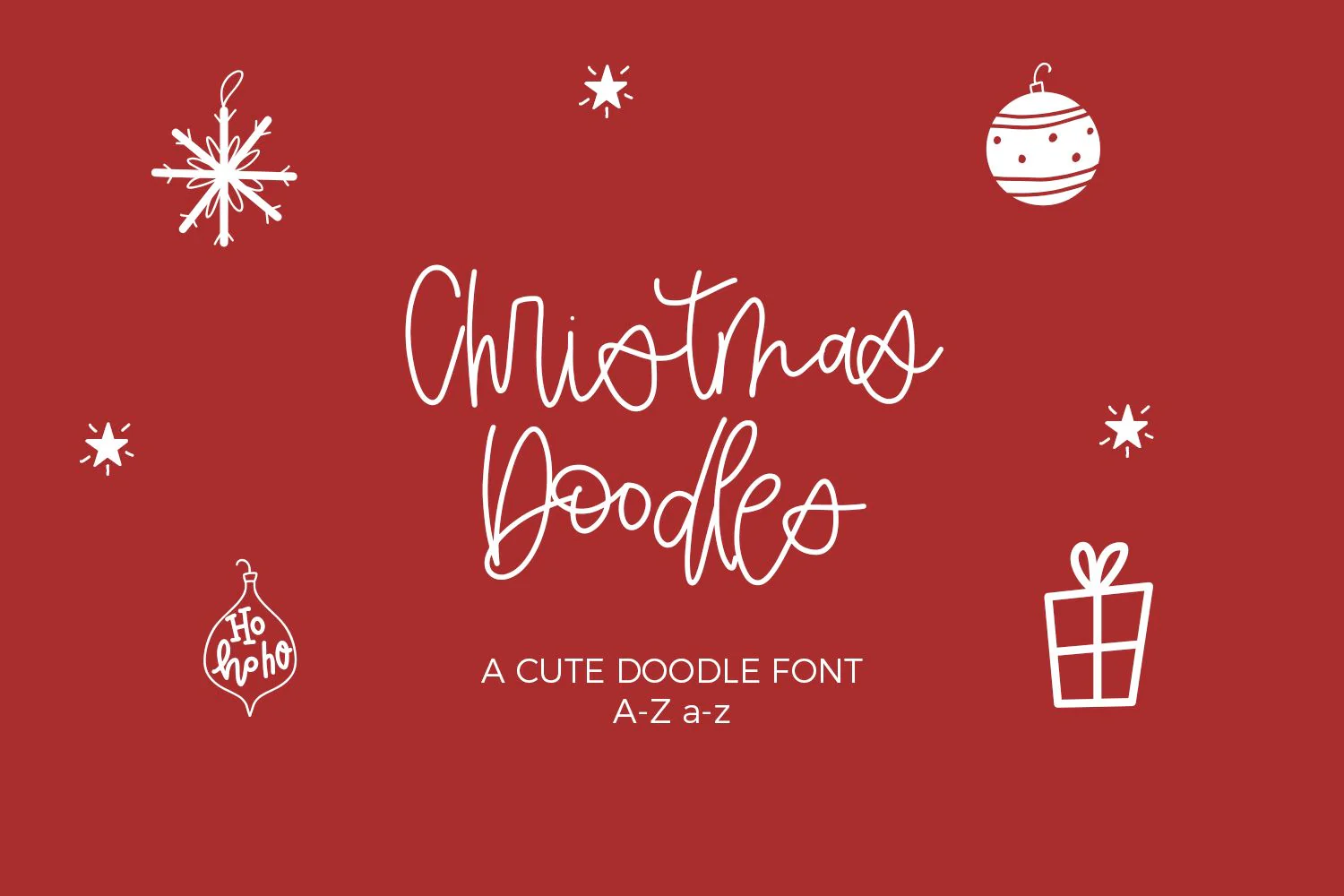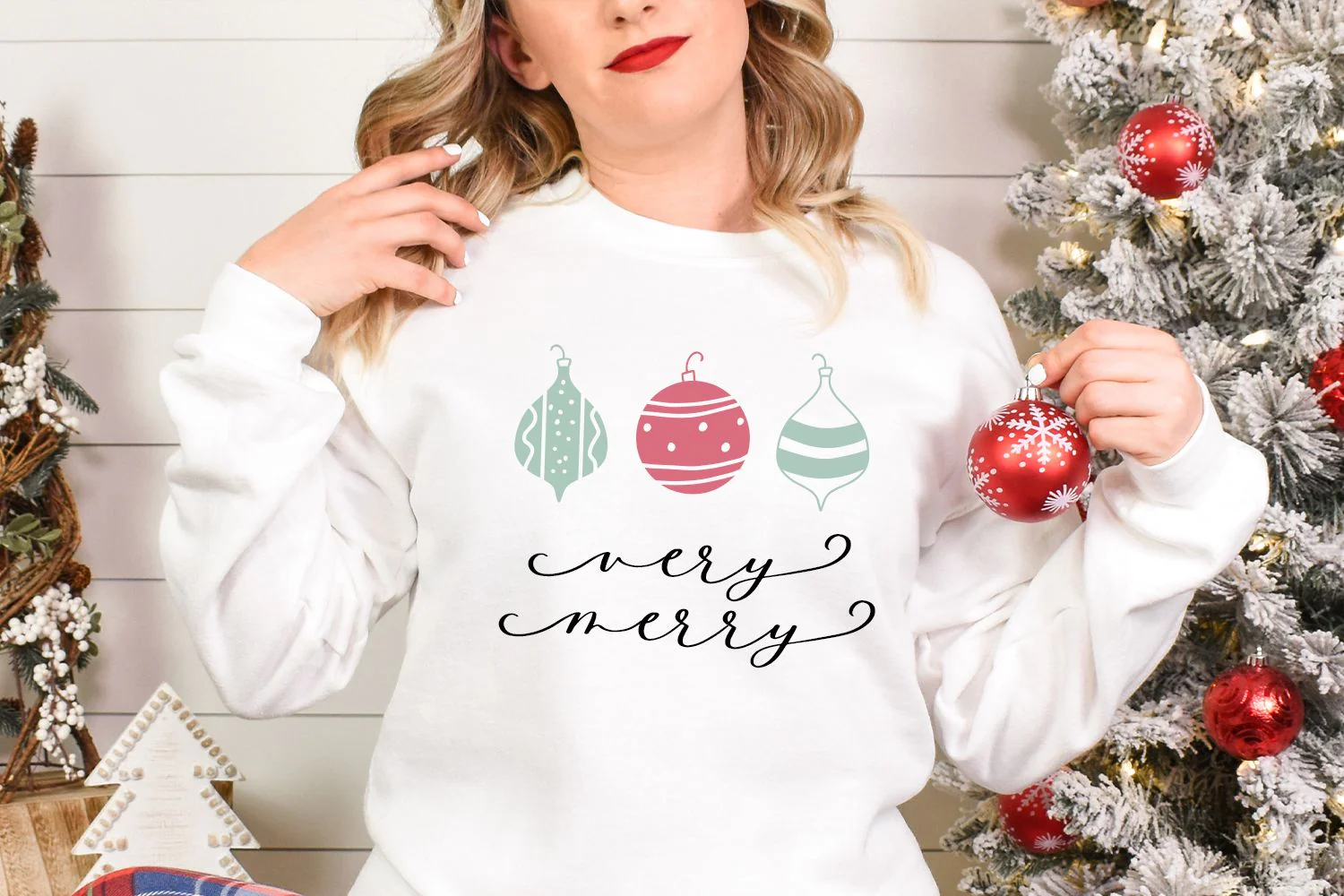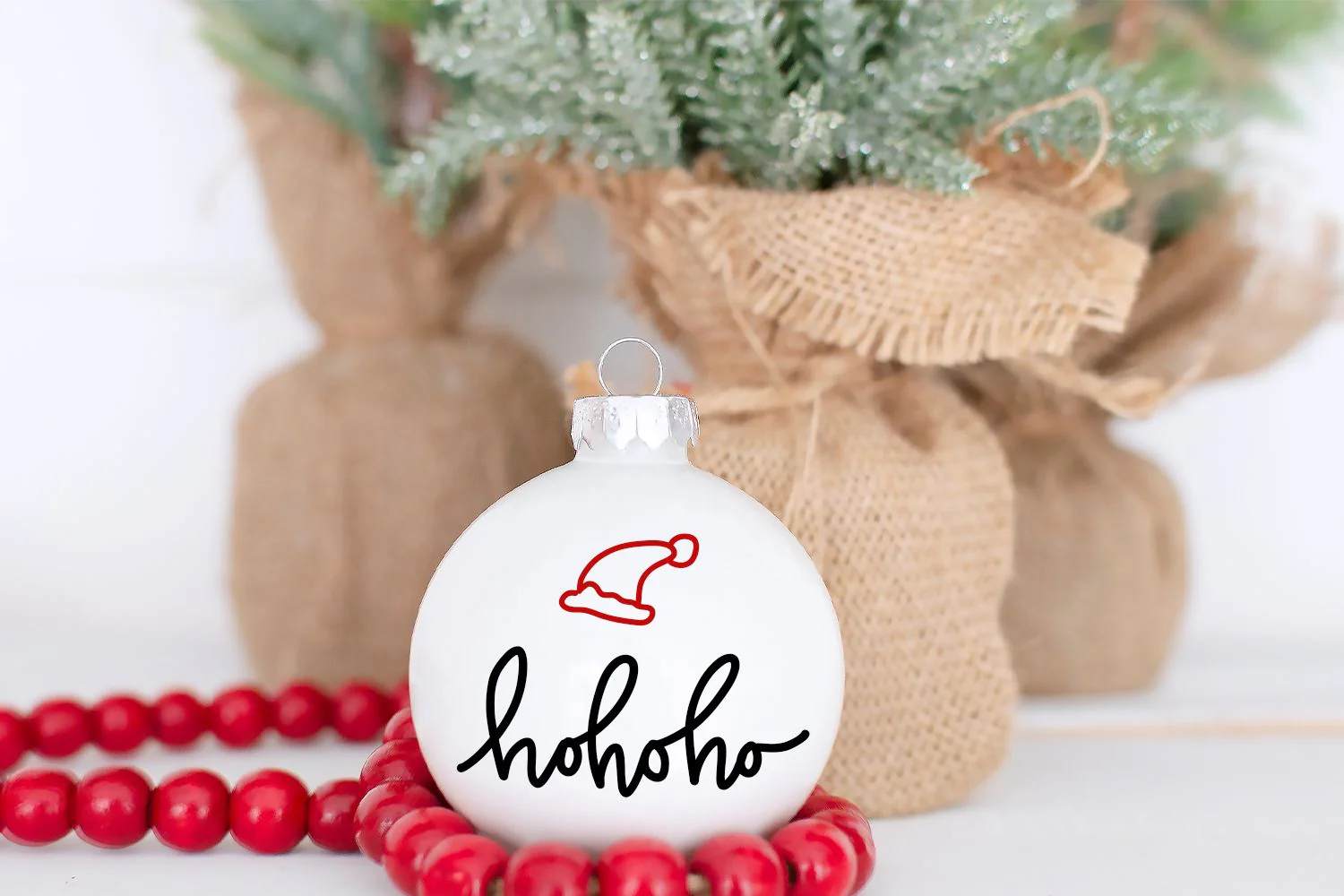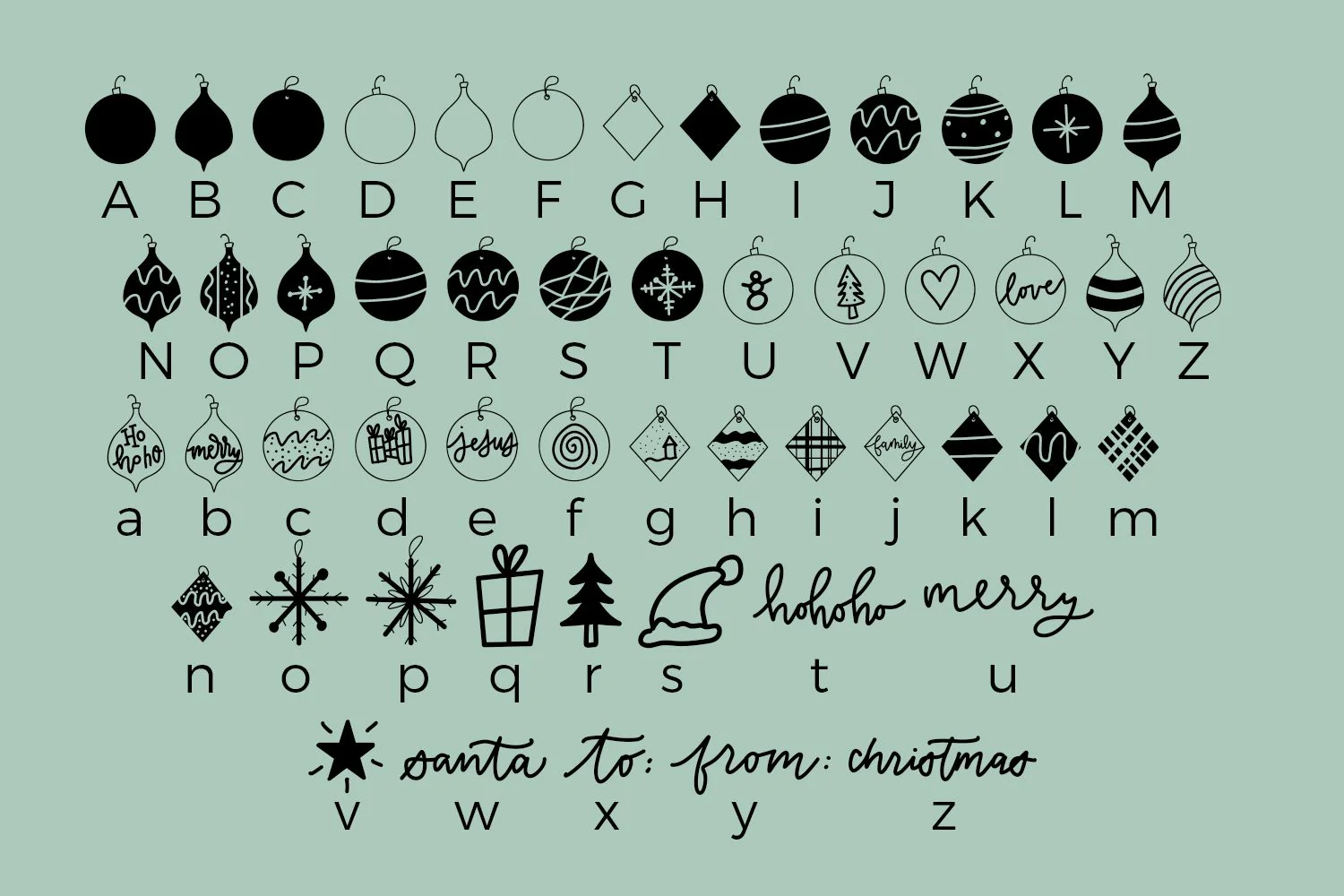
Christmas Doodles Font
Say hello to Christmas Doodles, a festive holiday font that includes doodles such as ornaments, snowflakes, and Christmas catchwords. Install this font on your computer, and watch as these cute little doodles pop up when you type on your keyboard. Make sure to check the last product image for a full look at the doodles this font includes. This font does not include any letters, numbers, or punctuation.
Christmas Doodles includes:
- doodles upper + lowercase characters A-Z and a-z